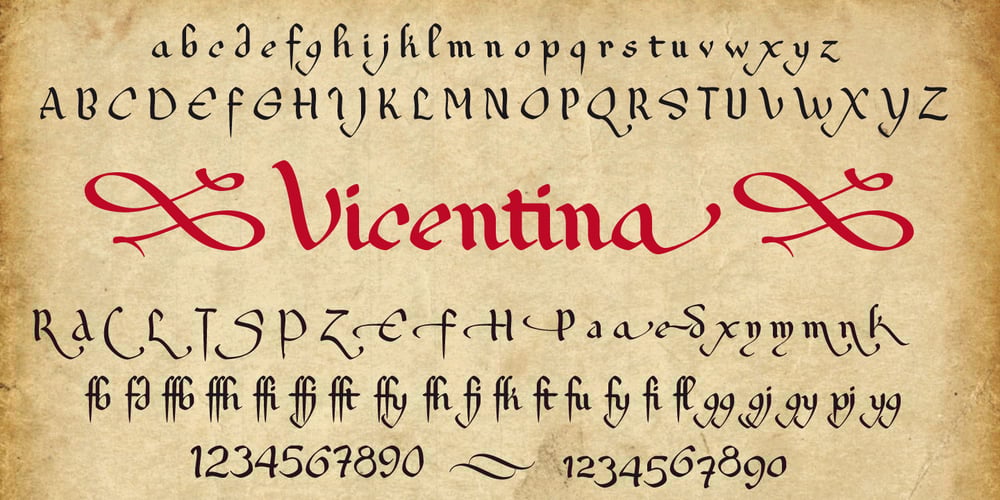
Vicentina Font Family was designed by Alberto Pedro Di Santo and published by Eurotypo. Vicentina contains 1 styles and family package options. Vicentina has been created starting from gothic cursive calligraphy, widely used in Italy during XIV century. The ductus of Vicentina has been derived from the documents redacted by Master Domenico Dominici from Vicenza, while most of the inspiration comes from books preserved in the archives of Orvieto Cathedral (Archivi dell’Opera del Duomo di Orvieto). As a result, Vicentina takes form with an elegant, but fast and simplified ductus respect to gothic graphs, rich in ligatures and with over 400 OpenType glyphs, in perfect harmony with the rules of readability of a modern typeface.